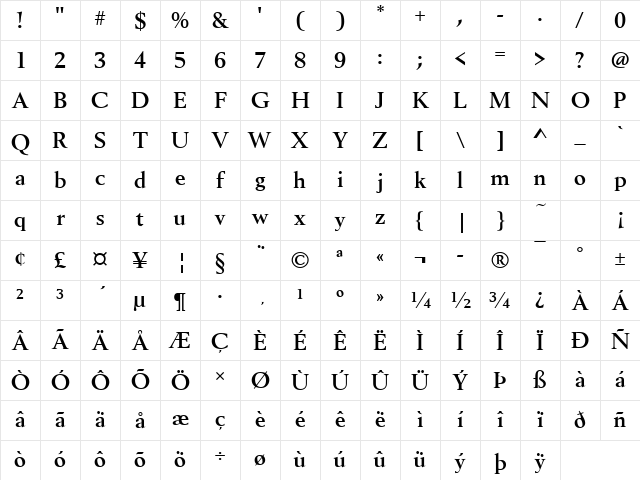
Complete Berling Becker Bold glyph index. Displaying only characters natively supported by Berling Becker Bold font.
Berling Becker is a composed and adaptable typeface that performs quietly and consistently across a wide range of design contexts. Its bold stroke weight gives it real presence on the page.